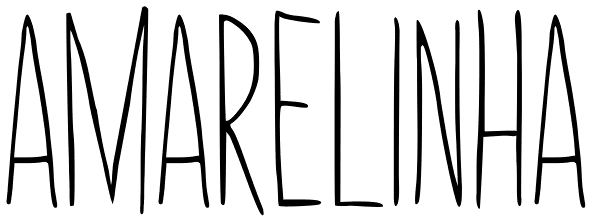
Amarelinha
Amarelinha is a casual and dynamic handwritten font, charming in its own peculiar way. It is a unicase alphabet, counting two versions for each letter, easily accessible through keyboard upper and lower cases. It also has a pocketful of automatic...
Amarelinha Bold
Amarelinha